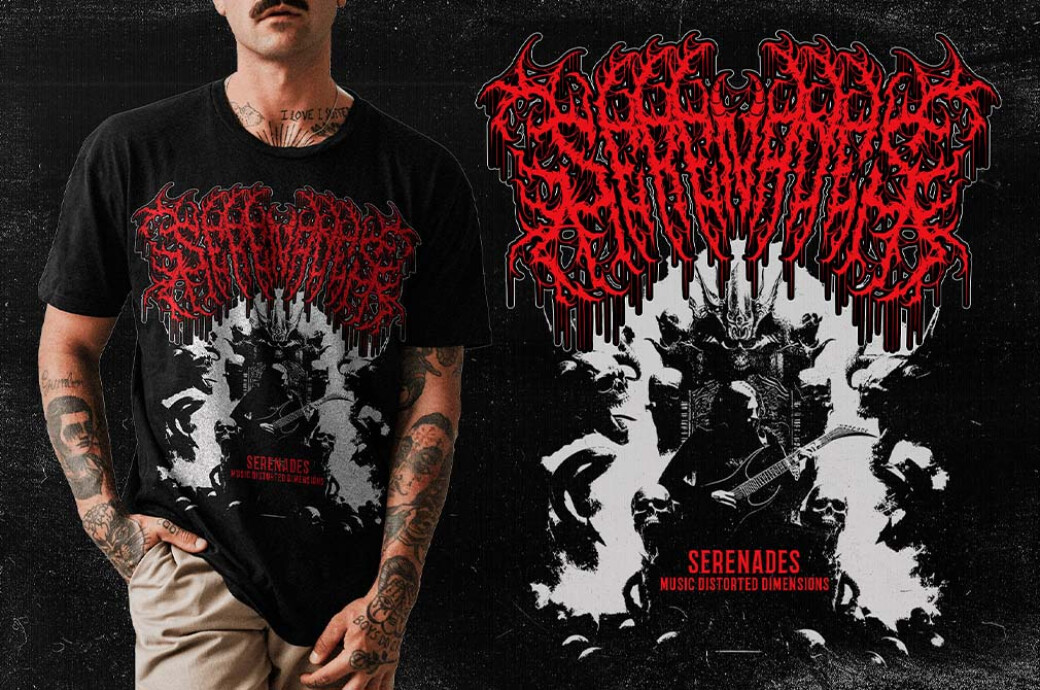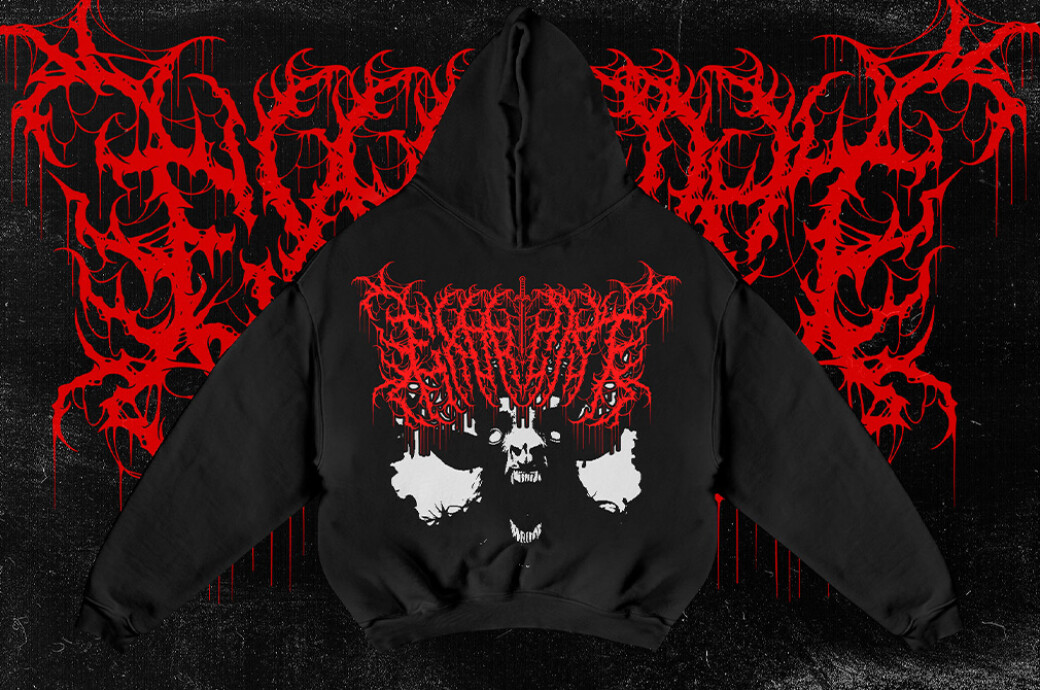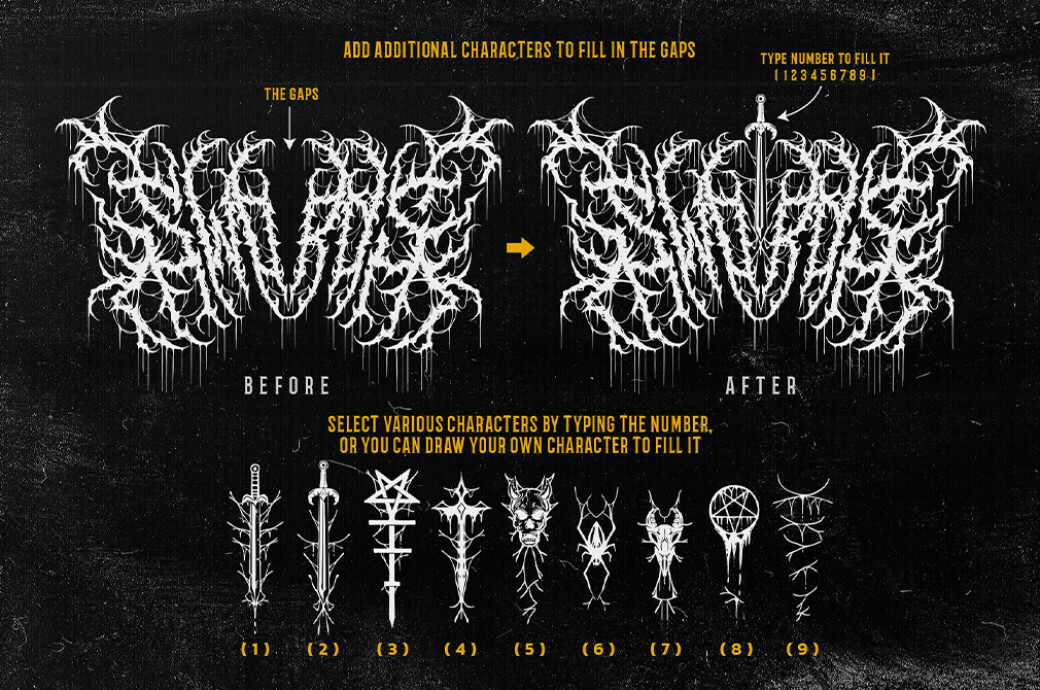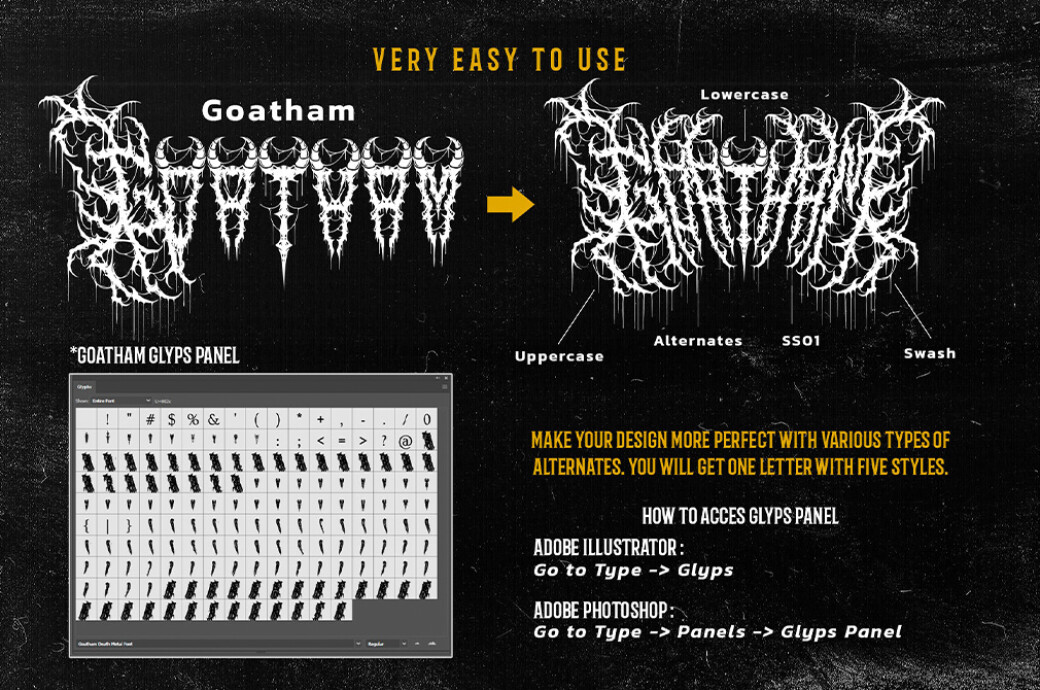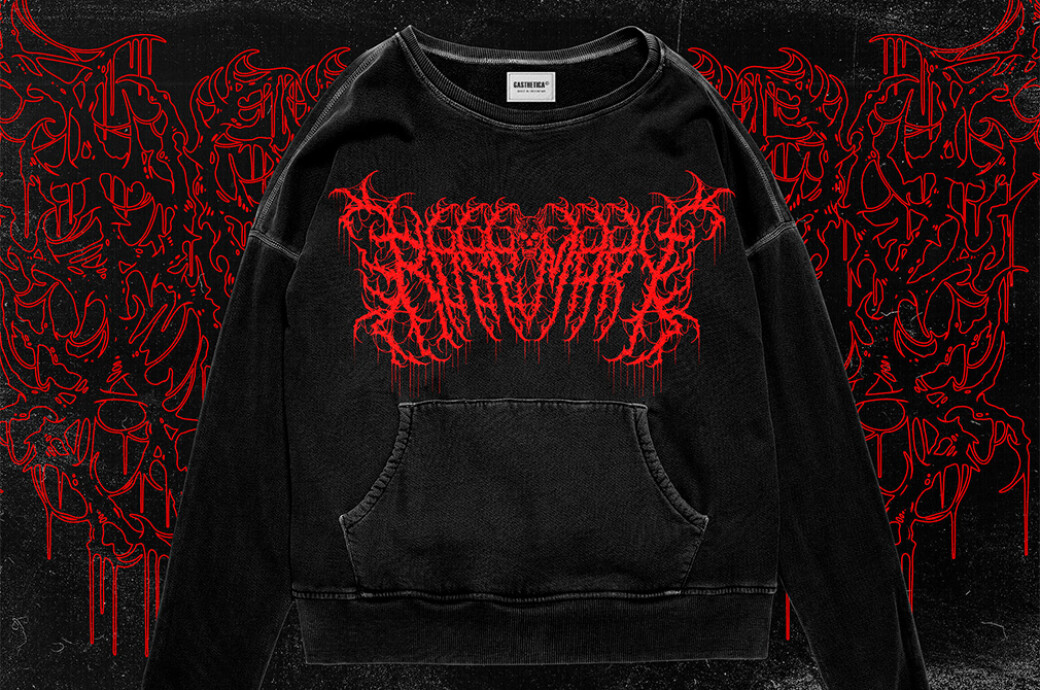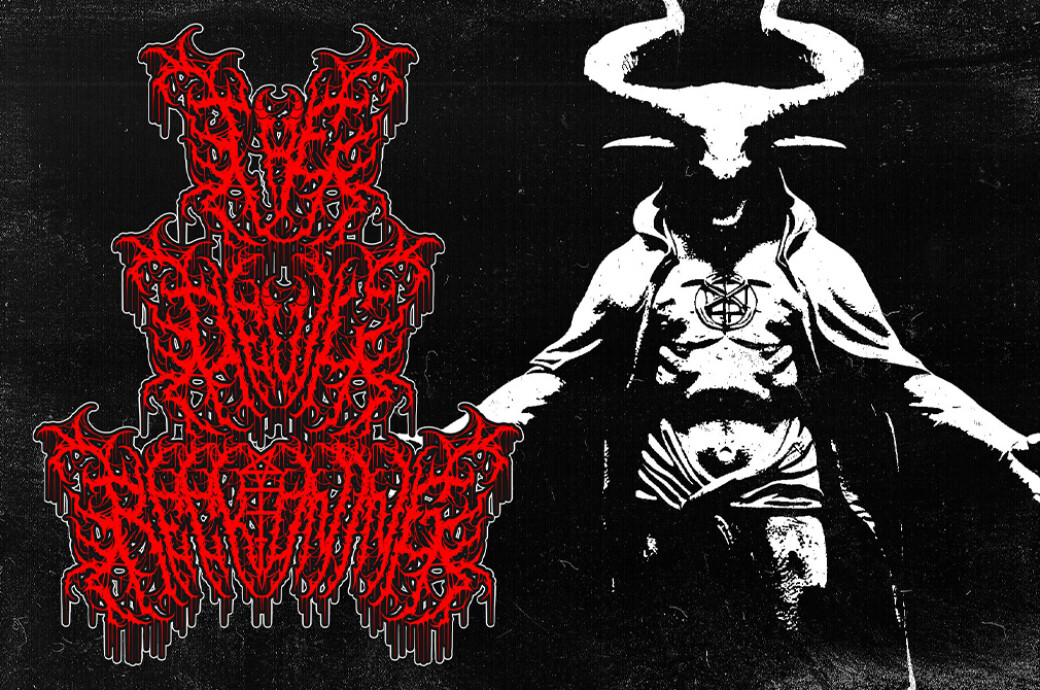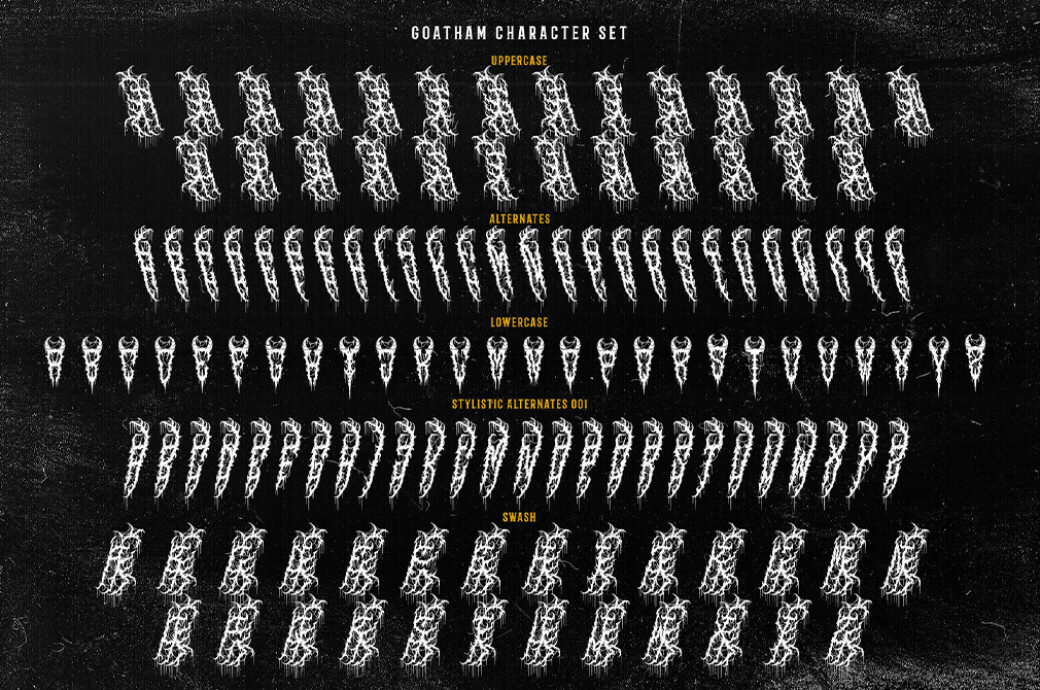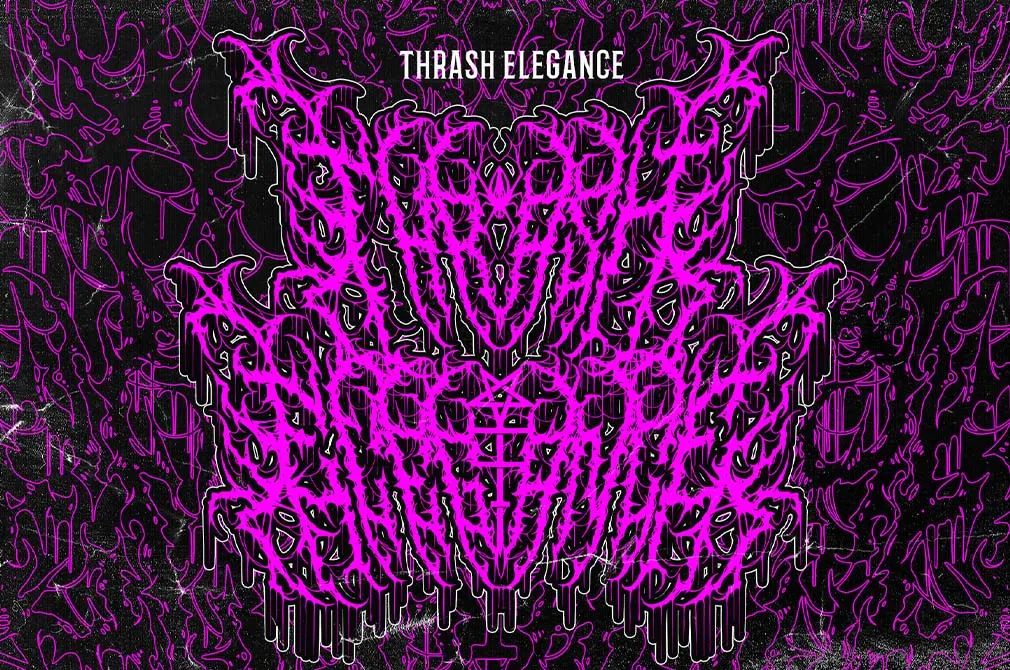
GOATHAM Death Metal Font
None of us previously thought of Gotham City as SUCH a grim place. However, a single metal font made us reinterpret the story of Batman and Joker and make it an ode to sinisterness.
GOTHAM merges traditional metal visuals with the detail and quality of modern fonts. It's a rare find for designers working on bands' logos; album covers, and merchandise, like tees, wristbands, and guitar picks. Its uniqueness manifests in precise character design and an extended set of glyphs. The font is PUA-encoded and features uppercases, swashes, and almost limitless alternates.